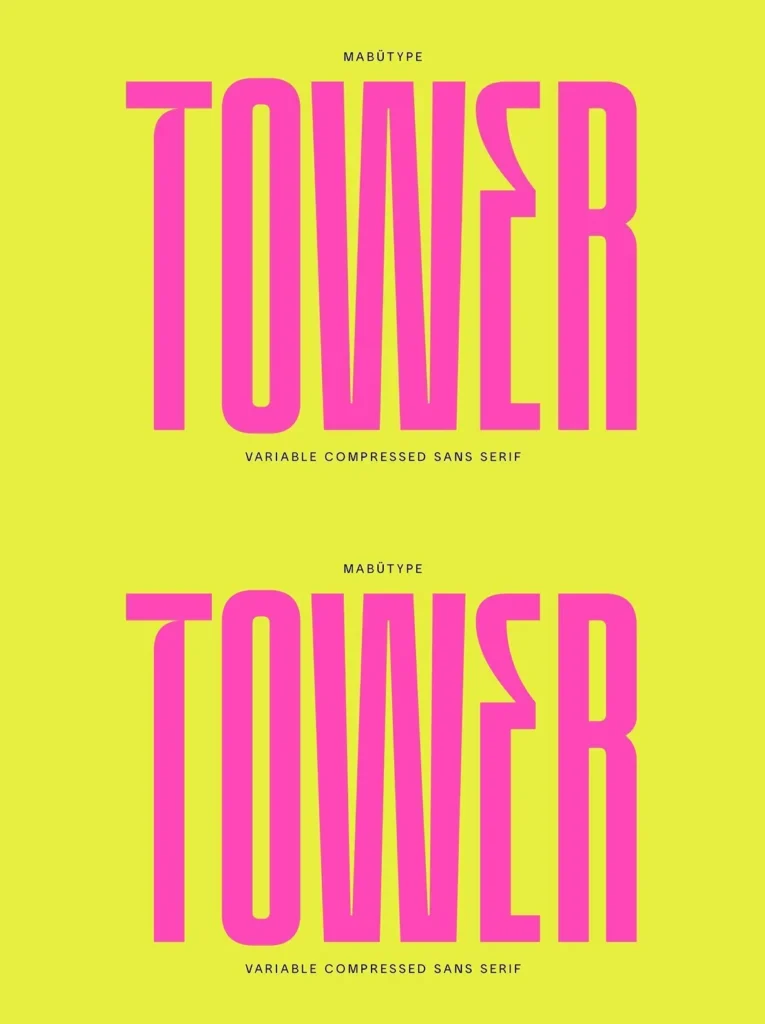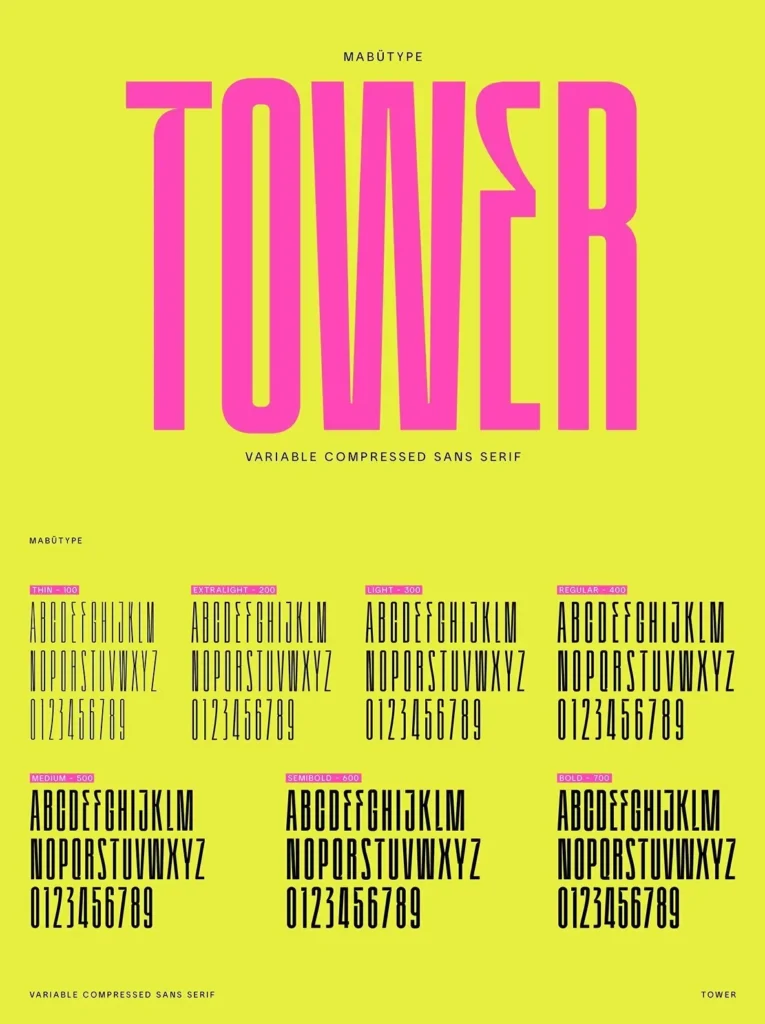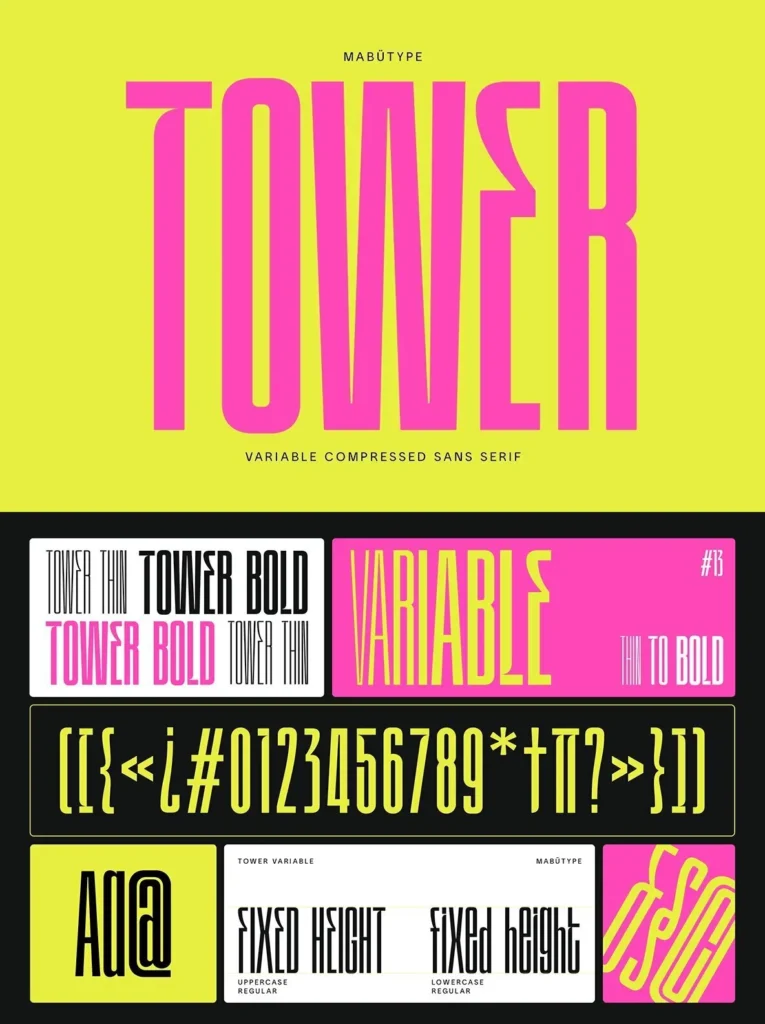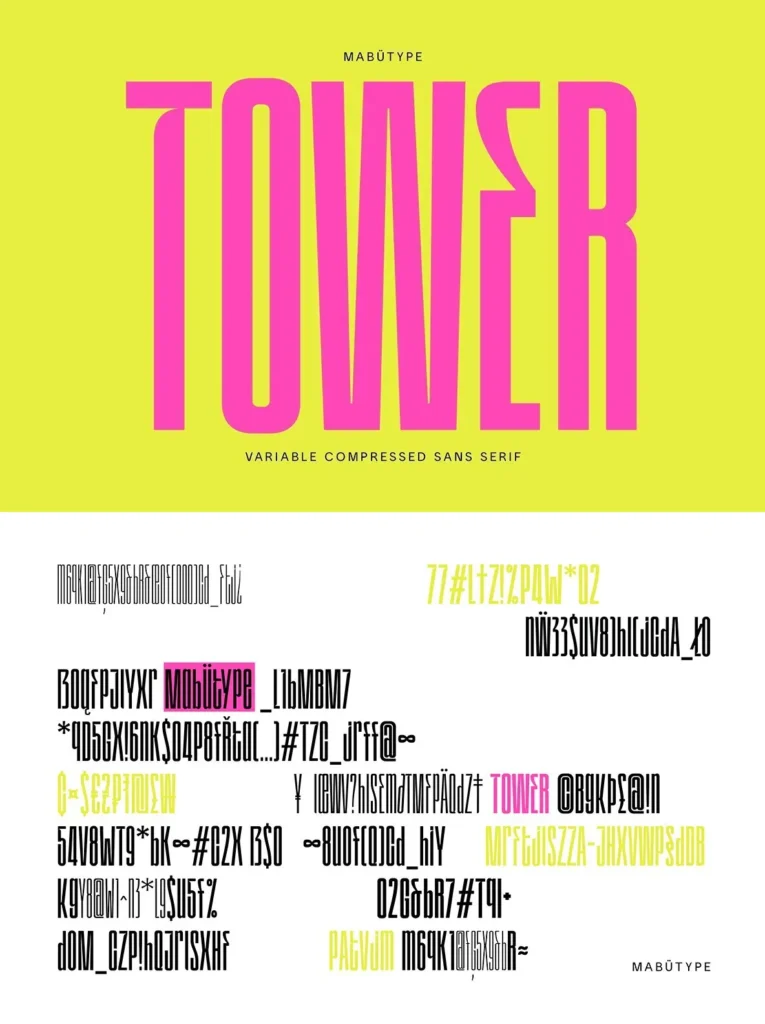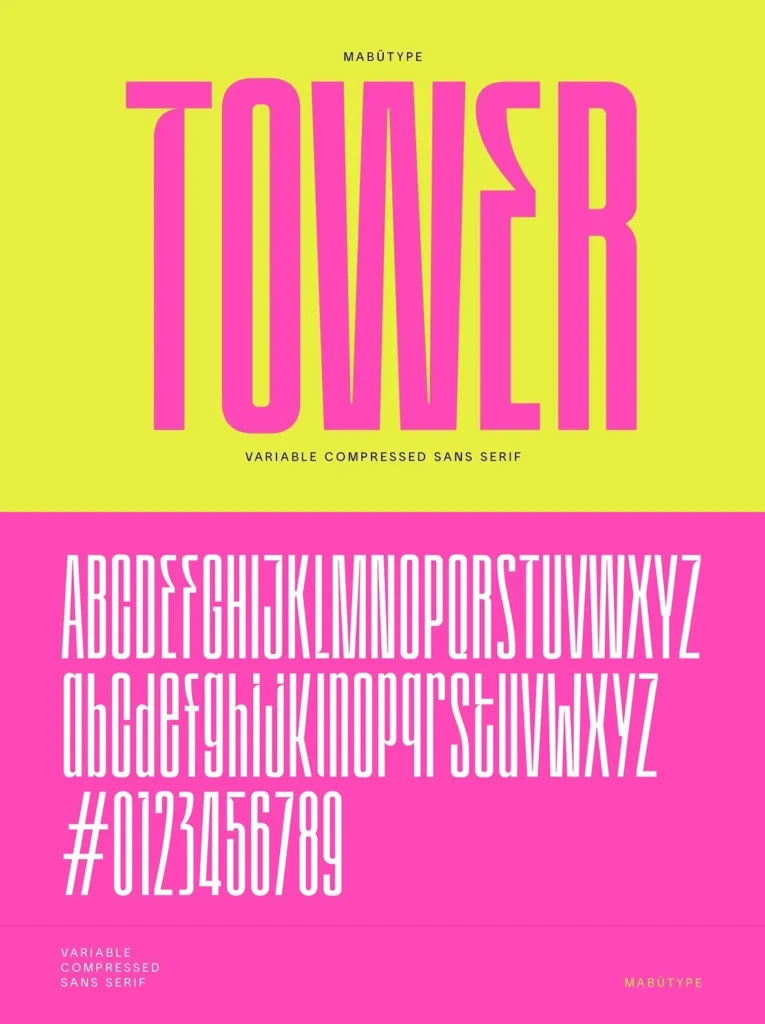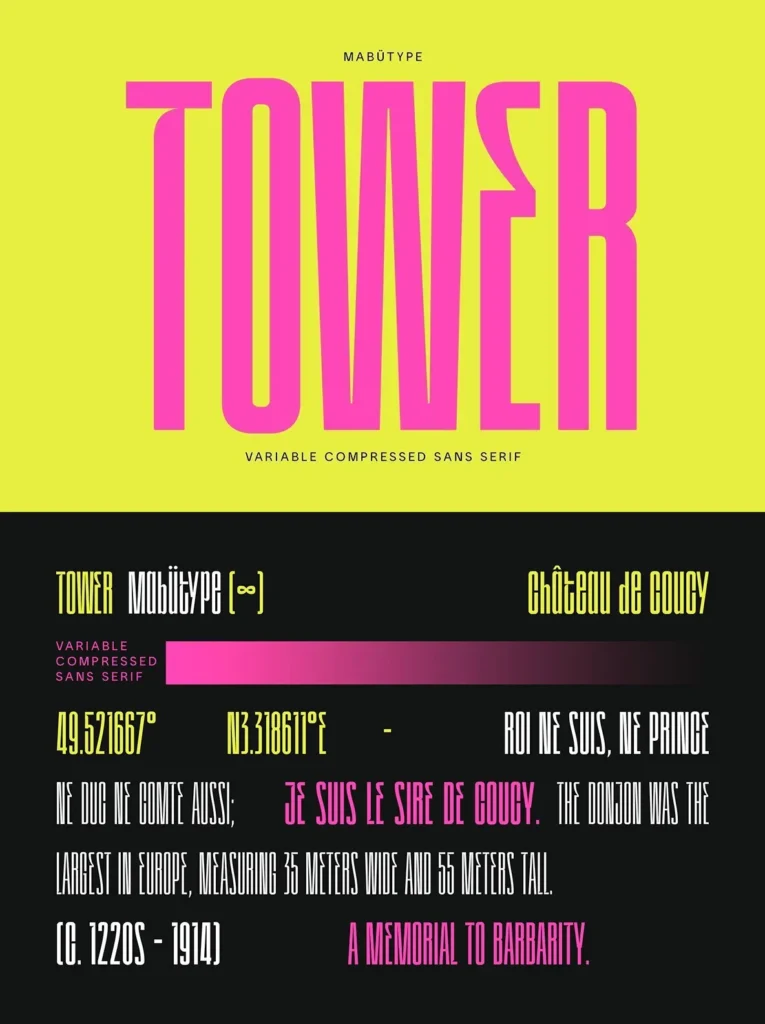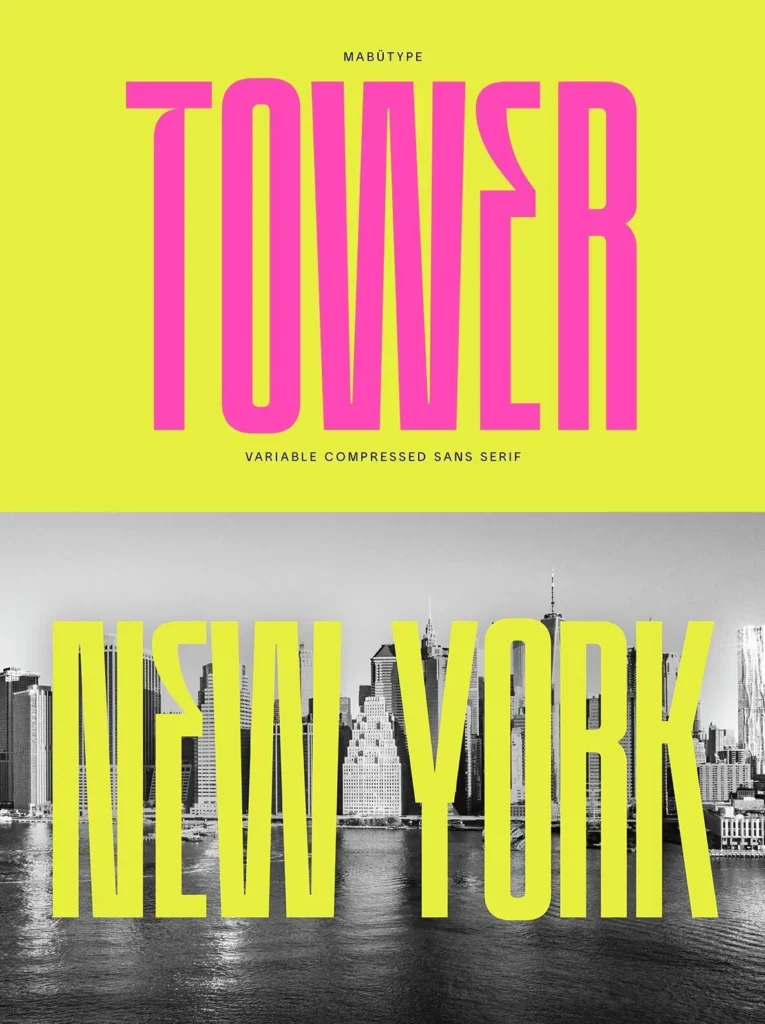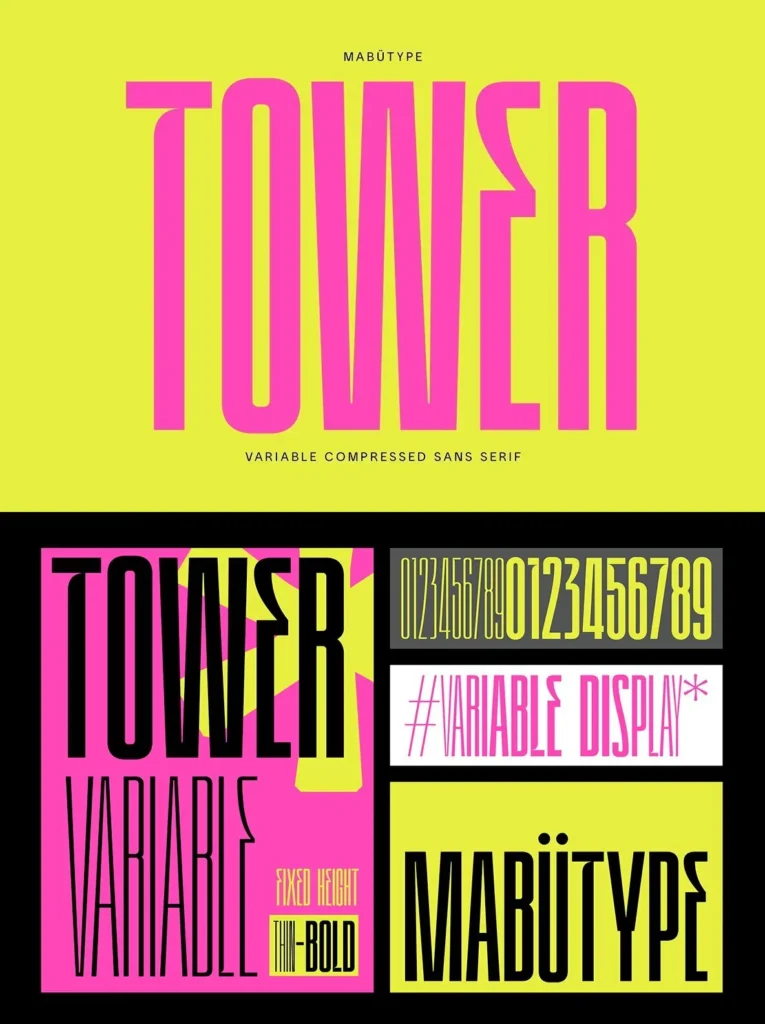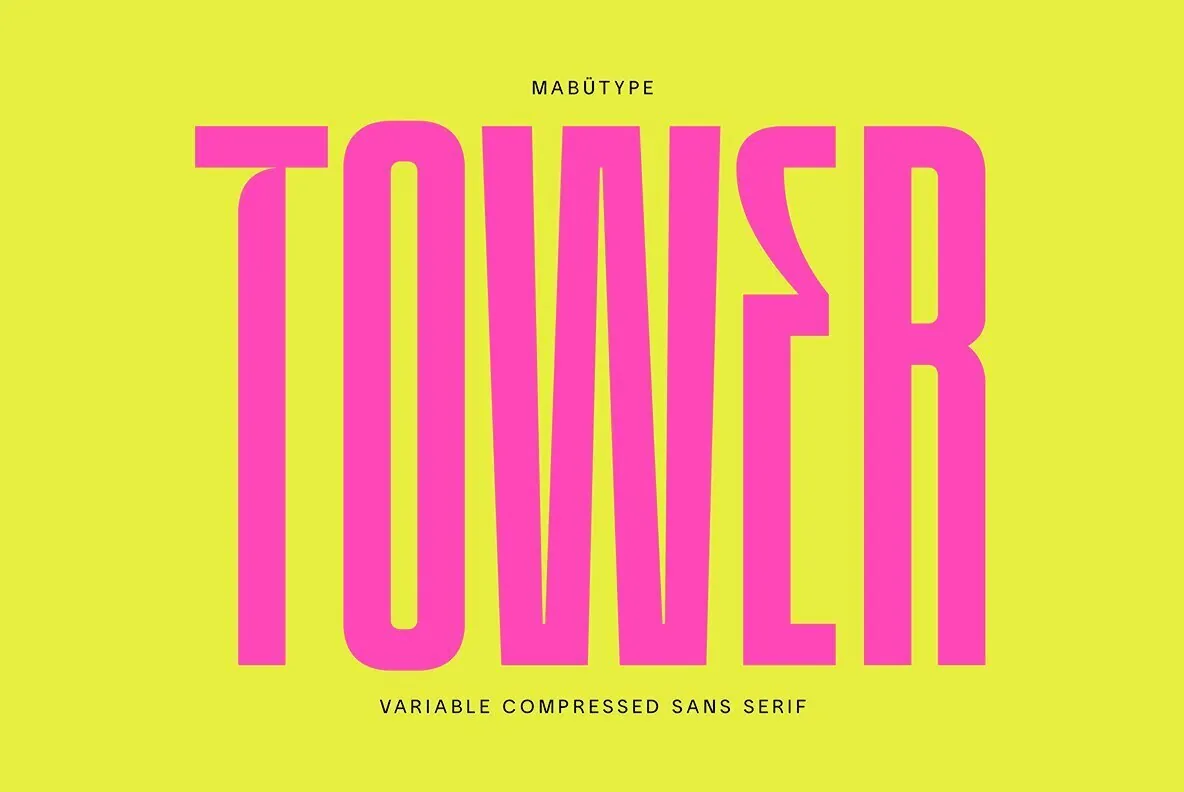
Tower — Fixed-Height Display With Edge
Tower uses a fixed height, condensed layout that favors display settings in magazines, digital designs, and work that needs a modern edge. Its unique letter compositions give the typeface a distinct tone, making it a strong choice for daring graphic designers and brands that want their typography to read with confidence.
The font includes multilingual support and an extensive character set. It also works well across real-world applications where clarity and presence matter, especially at larger sizes.